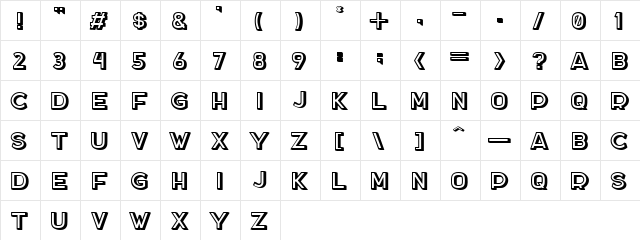
DOCKER THREE
| Foundry | Slava "Designvamp" Krivonosov |
| Designer | Slava "Designvamp" Krivonosov |
Design Context for DOCKER Typeface
DOCKER is a composed and adaptable typeface that performs quietly and consistently across a wide range of design contexts.